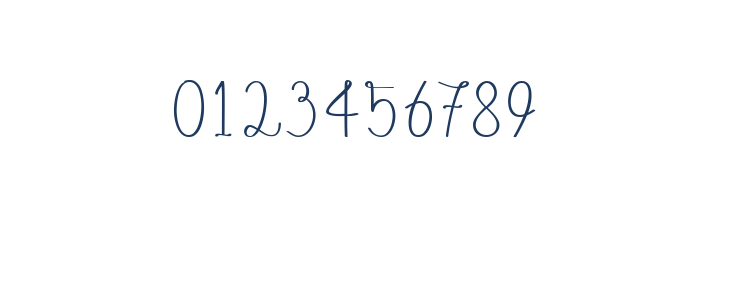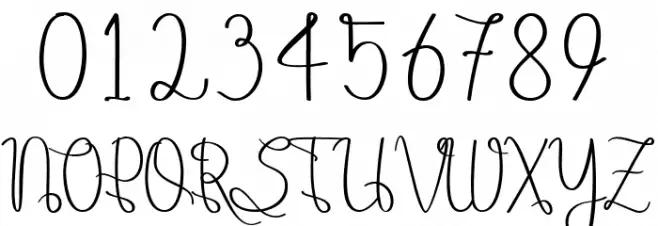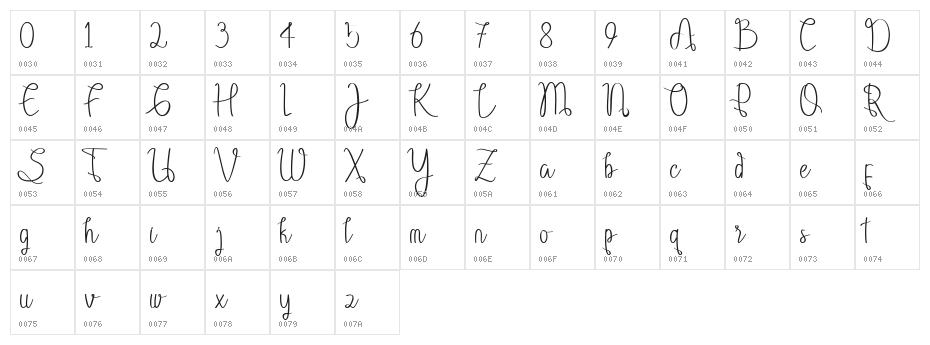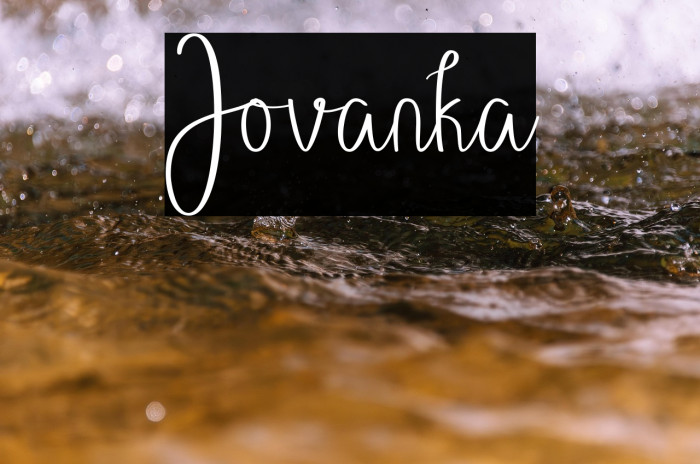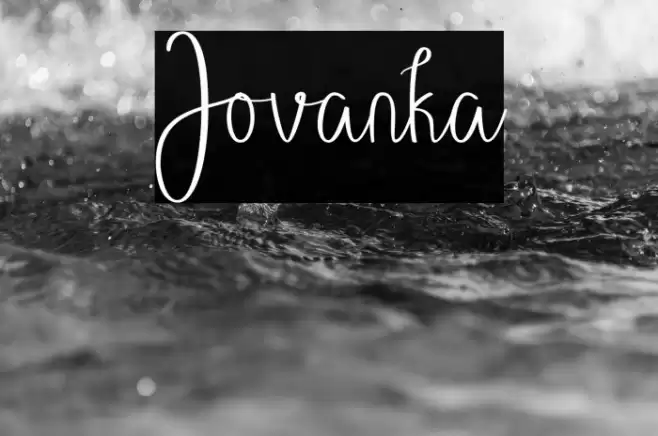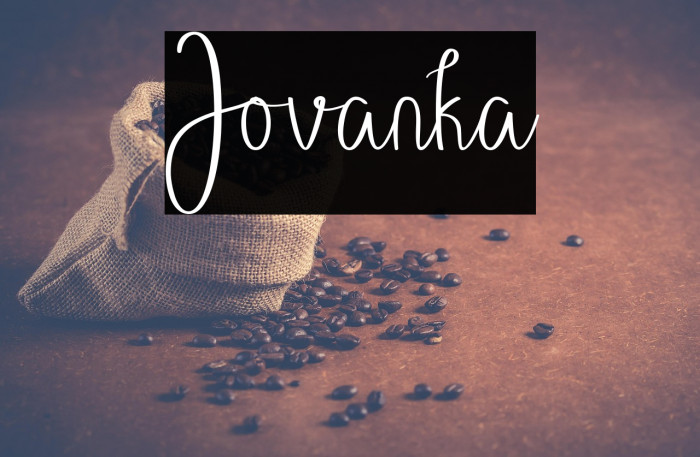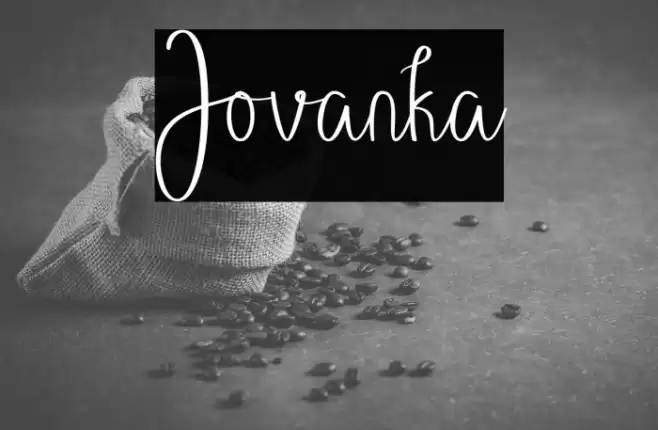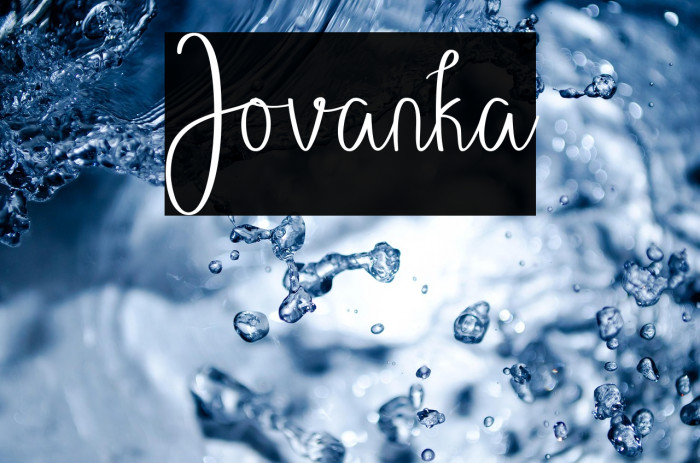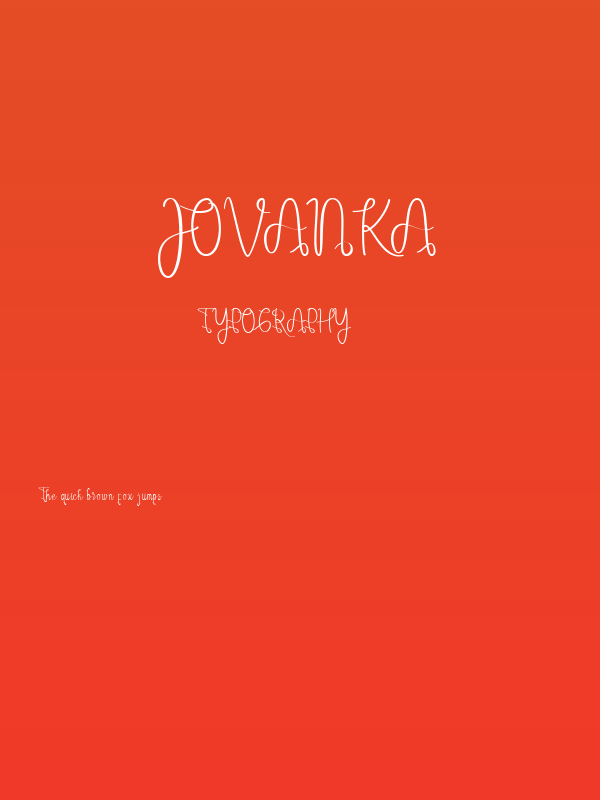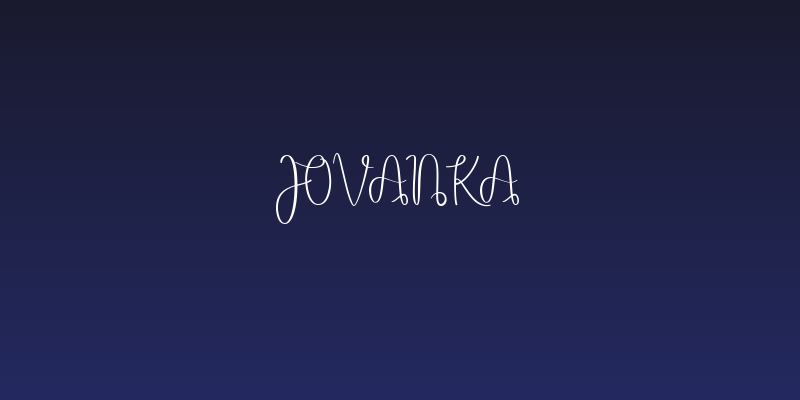
Jovanka Font
Jovanka Description
This font features an elegant and whimsical script style, characterized by its flowing, interconnected letters and playful loops. The uppercase letters are tall and slender, with unique flourishes that add a touch of sophistication and charm. The lowercase letters maintain a consistent style, with smooth curves and a slightly informal appearance. Numbers are designed to complement the overall aesthetic, with a similar balance of elegance and readability. The special characters are thoughtfully integrated, maintaining the font's cohesive look. This font is perfect for projects that require a personal and artistic touch, such as invitations, greeting cards, and branding materials.